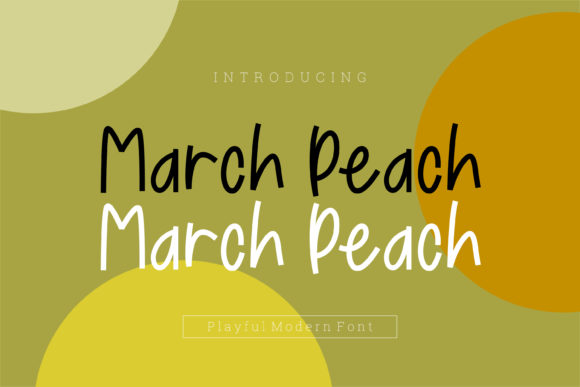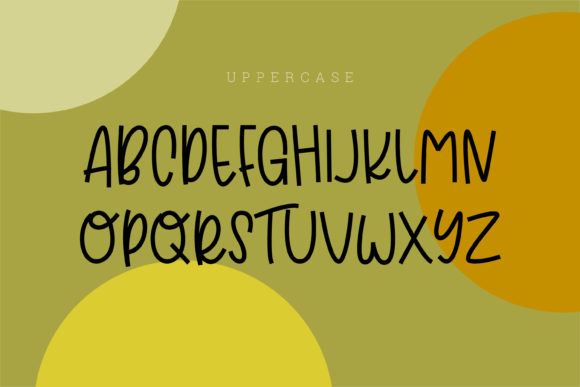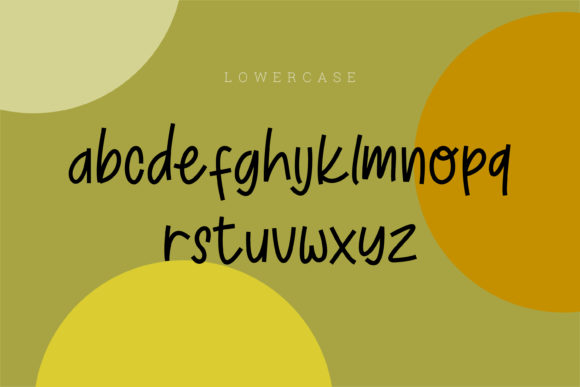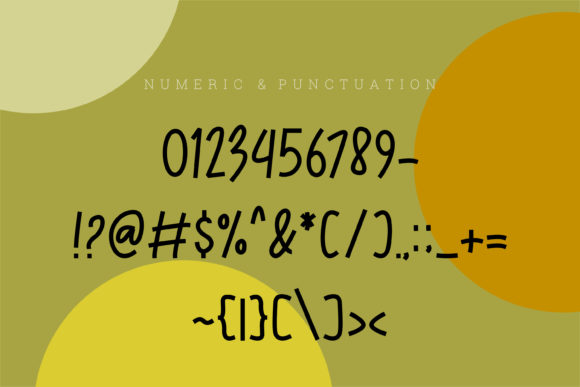
March Peach Font
About March Peach Font
March Peach is a cute and quirky handwritten font. Its simple and friendly style makes this font adept to a large set of designs. Add it to your creative ideas and notice how it makes them stand out!